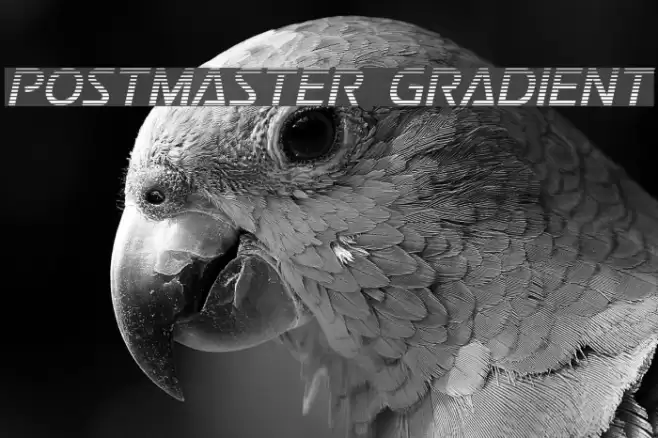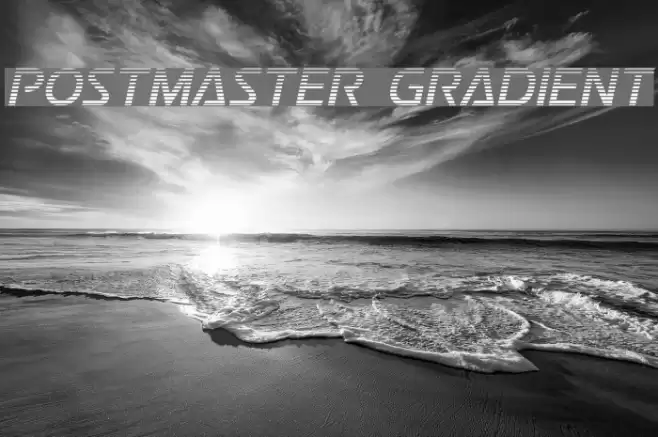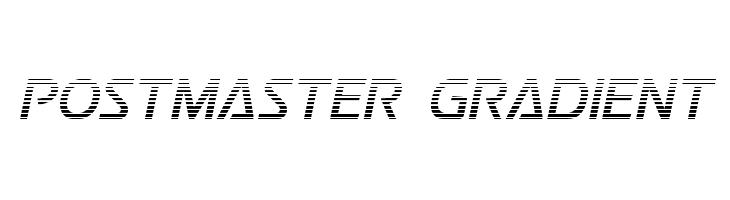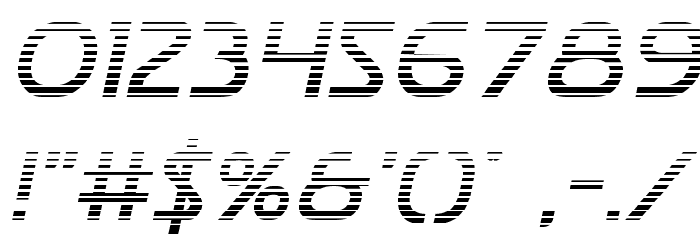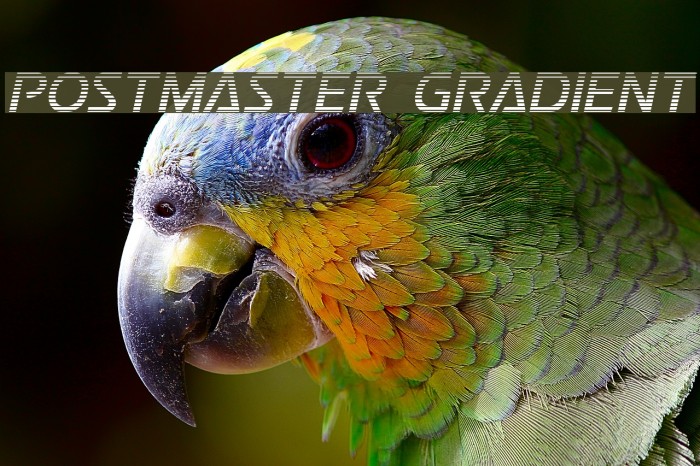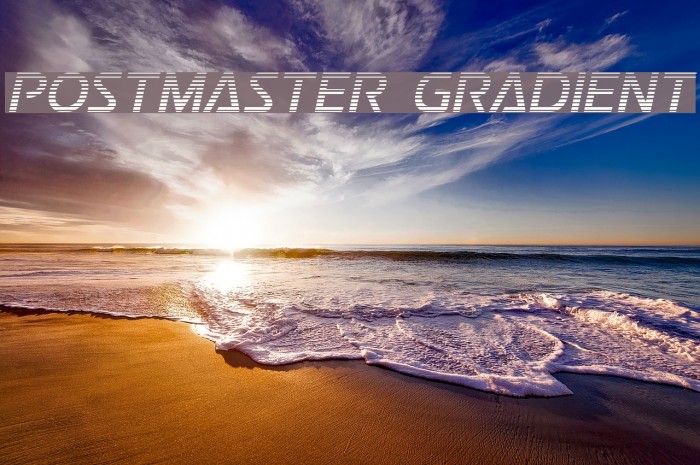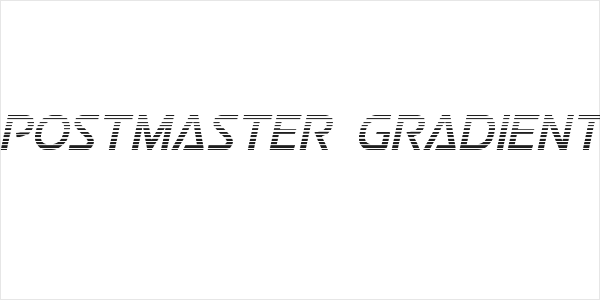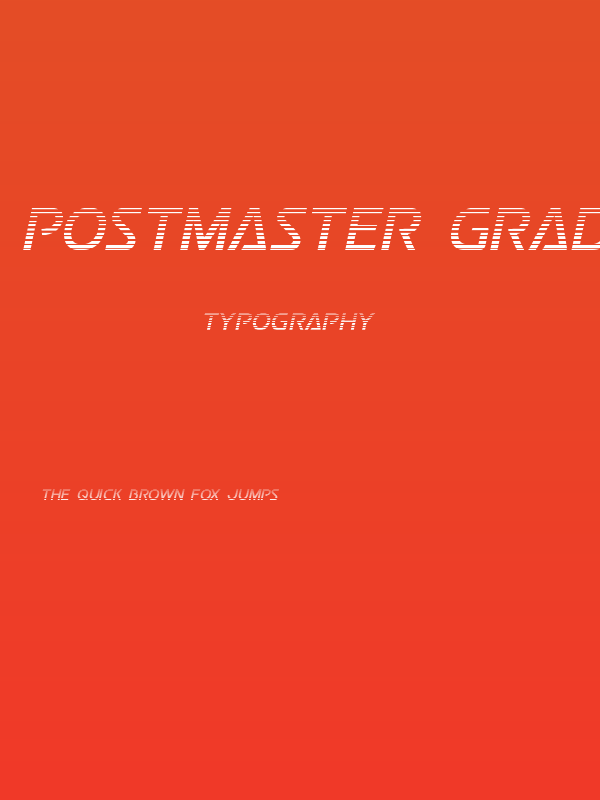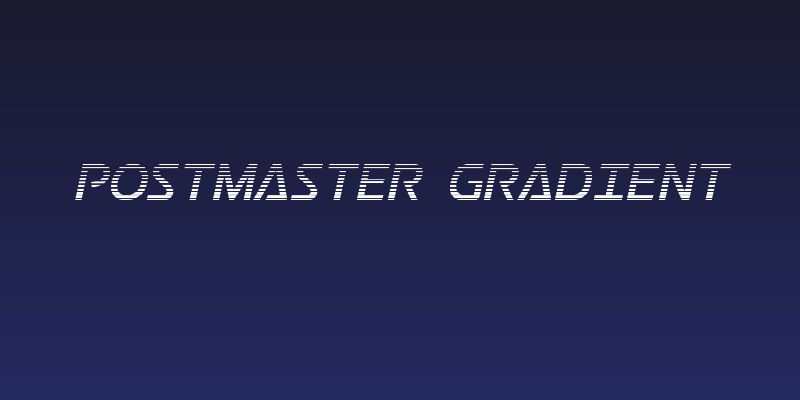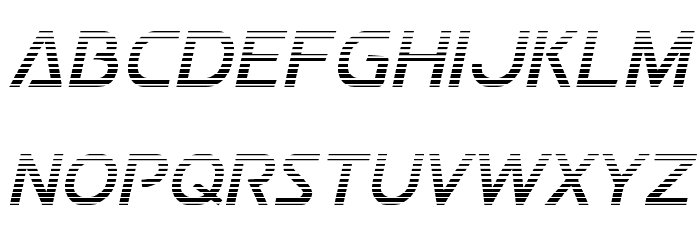
Postmaster Gradient Font
Postmaster Gradient Description
This font features a unique gradient effect created by horizontal lines that form each character, giving it a dynamic and modern appearance. The uppercase and lowercase letters maintain a consistent style, with a slight italic slant that adds a sense of motion. The numerals and special characters are designed with the same striped pattern, ensuring uniformity across all glyphs. The font's distinct style makes it stand out, ideal for projects that require a bold and contemporary look.
A modern, striped font with a dynamic gradient effect and italic slant from Uncategorized fonts.
- Proposed Projects: Ideal for branding, posters, digital media, and any design needing a modern, eye-catching typeface.